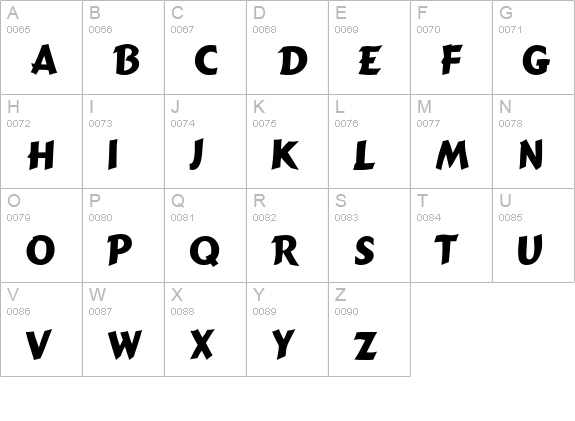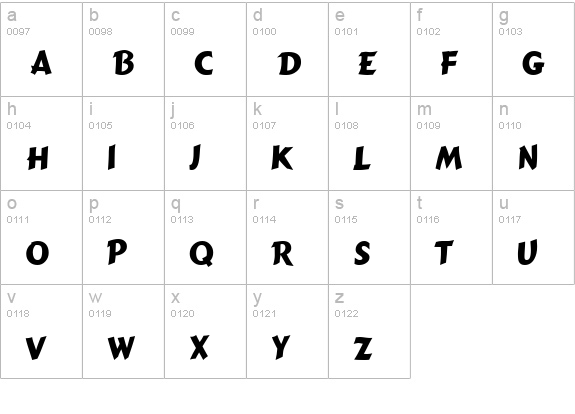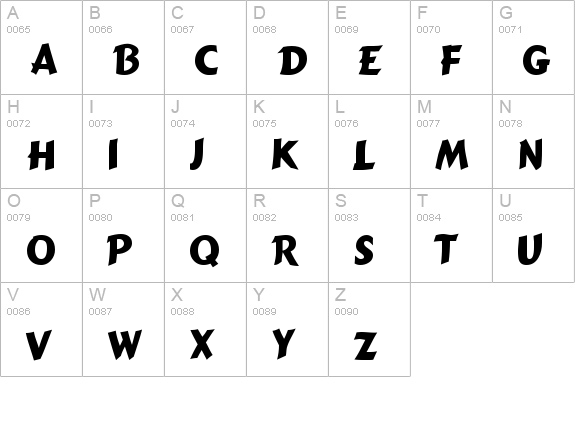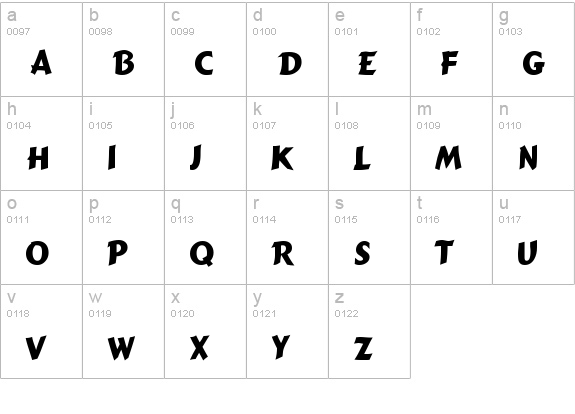
GremlinCaps Bold is a strong, high-contrast variant in the GremlinCaps typeface family \xE2\x80\x94 well suited to headlines, attention-grabbing titles, and strong calls-to-action.
GremlinCaps Bold is a unique and eye-catching display font that exudes a sense of playful energy and creativity. Its bold and distinctive letterforms make it perfect for making a statement in headlines, logos, posters, and more. The font is designed with a quirky and mischievous style, making it stand out from the crowd. Best of all, GremlinCaps Bold is available for free download at FontsMarket.com. This means you can easily add this fun and expressive font to your design arsenal without any cost. Whether you're working on personal projects or professional designs, GremlinCaps Bold is sure to bring a touch of whimsy and personality to your work. Don't miss out on this fantastic opportunity to enhance your designs with this fantastic font!